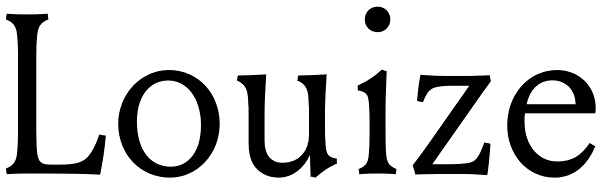
Louize
Louize is a contemporary revival of the ‘Augustaux’ designed by Louis Perrin between 1846 and 1855, and considered as the first revival in the history of typography. Louize mixes roman square capitals with a set of transitional / old style / incised...